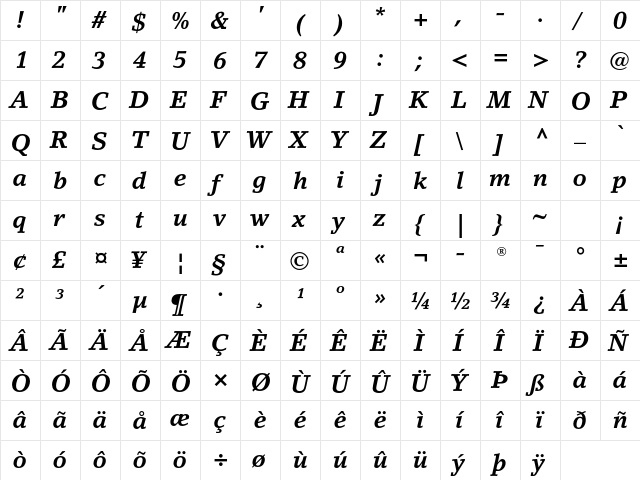
LinoLetter Std Bold Italic Font Preview
| Designer | Reinhard Haus, Andre G߲tler |
Design Context for LinoLetter Std Typeface
LinoLetter Std takes a measured approach to typography — its balanced proportions and neutral character make it a reliable workhorse for both digital and print work. Its italic angle brings a sense of urgency and motion to the letterforms. The heavy weight commands attention and anchors typographic hierarchies.
Pro Tip: Try LinoLetter Std for annotation and caption copy alongside an upright companion — the contrast in angle creates a dynamic but ordered typographic system.